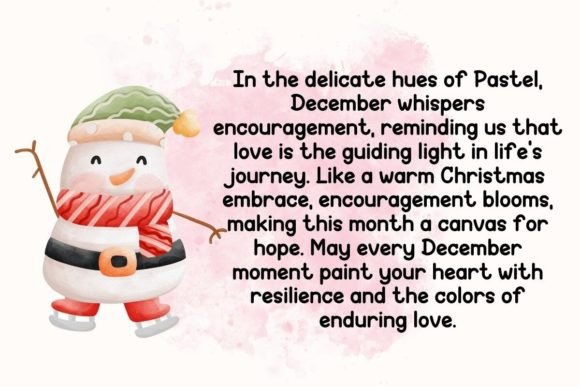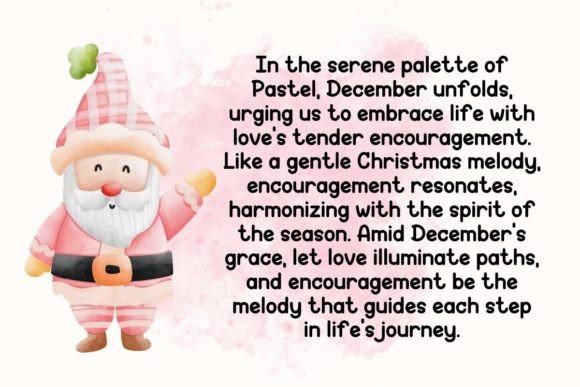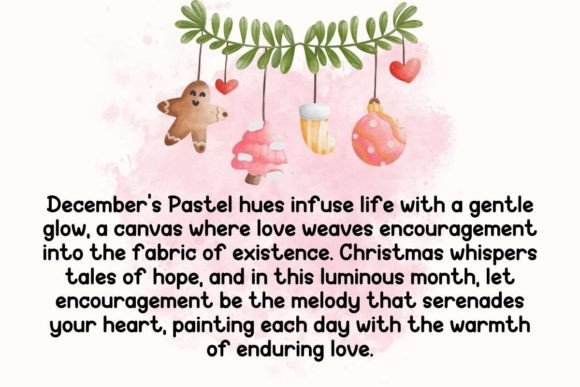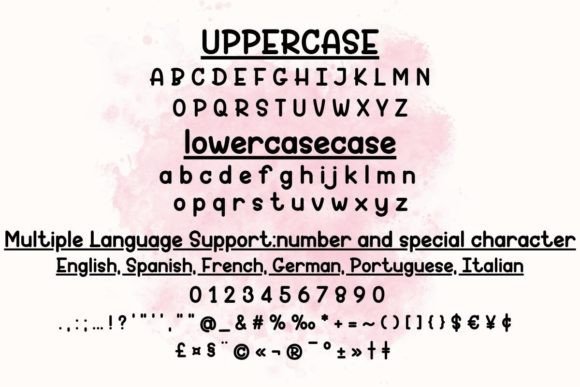
Discover the Enchanting World of Typography with December Pastel
Are you a designer, crafter, or typography enthusiast looking for a font that embodies the essence of nostalgia and warmth? Look no further than December Pastel, a beautiful and delicate font that captures the magic of the holiday season. With its subtle curves and gentle strokes, this font is sure to elevate your designs and add a touch of timeless charm to your projects.
The Story Behind December Pastel
December Pastel is more than just a font – it’s a work of art that tells a story. Each character is carefully crafted to evoke a sense of nostalgia and warmth, reminiscent of a bygone era. The font’s delicate strokes and subtle curves are designed to transport you to a world of wonder and enchantment, where every letter is a masterpiece.
What Makes December Pastel Special?
So, what sets December Pastel apart from other fonts? Here are just a few features that make it truly special:
- Delicate Strokes: December Pastel’s strokes are gentle and refined, giving the font a sense of elegance and sophistication.
- Subtle Curves: The font’s curves are subtle and nuanced, adding a touch of warmth and personality to each character.
- Timeless Charm: December Pastel has a timeless quality that makes it perfect for designs that need to stand the test of time.
- Versatile: Whether you’re designing a holiday card, a craft project, or a website, December Pastel is versatile enough to fit any style or theme.
How to Use December Pastel in Your Designs
December Pastel is a versatile font that can be used in a variety of design projects. Here are just a few ideas to get you started:
- Holiday Cards: Add a touch of nostalgia and warmth to your holiday cards with December Pastel.
- Craft Projects: Use December Pastel to add a personal touch to your craft projects, such as scrapbooking, journaling, or papercrafting.
- Websites: Add a touch of elegance and sophistication to your website with December Pastel.
- Social Media: Use December Pastel to create eye-catching social media graphics that will stand out from the crowd.
Tips for Pairing December Pastel with Other Fonts
December Pastel is a beautiful font that can be paired with a variety of other fonts to create stunning designs. Here are a few tips for pairing December Pastel with other fonts:
- Pair with Bold Fonts: Pair December Pastel with bold fonts to create a striking contrast that will add visual interest to your designs.
- Pair with Script Fonts: Pair December Pastel with script fonts to create a beautiful and elegant combination that is perfect for designs that require a touch of sophistication.
- Pair with Sans-Serif Fonts: Pair December Pastel with sans-serif fonts to create a clean and modern combination that is perfect for designs that require a touch of simplicity.
December Pastel is a beautiful and enchanting font that is sure to capture the hearts of designers, crafters, and typography enthusiasts alike. With its delicate strokes, subtle curves, and timeless charm, this font is perfect for designs that require a touch of nostalgia and warmth. Whether you’re designing a holiday card, a craft project, or a website, December Pastel is sure to elevate your designs and add a touch of magic to your projects.
Get Ready to Fall in Love with December Pastel
So, what are you waiting for? Discover the enchanting world of typography with December Pastel and fall in love with this beautiful font. Whether you’re a seasoned designer or a crafty beginner, December Pastel is sure to inspire you to create stunning designs that will leave a lasting impression.